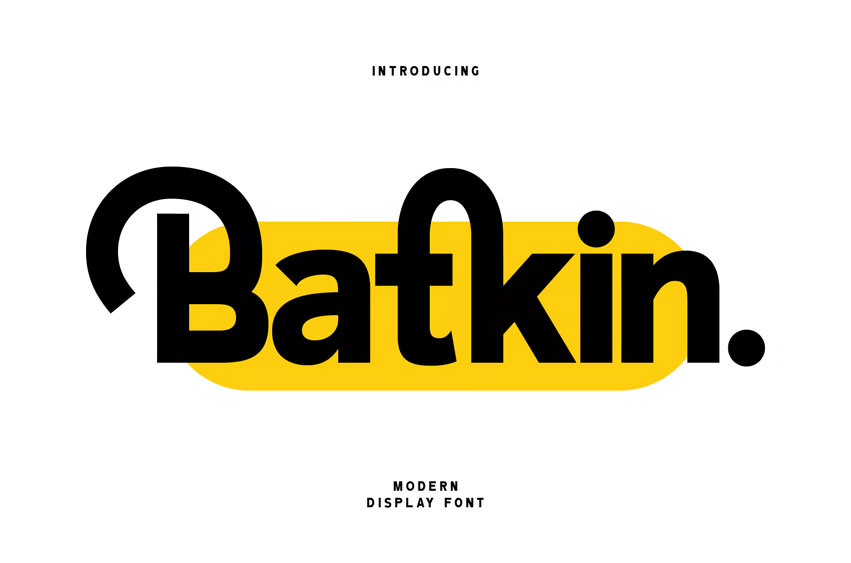
Batkin Font is a bold and modern display font that combines strong geometric shapes with playful curves. Its unique letterforms give it a creative and contemporary character, perfect for branding, packaging, headlines, or editorial designs. The smooth, rounded terminals contrast with sharp lines, creating a striking balance between friendly and professional tones. Whether used in large print or digital screens, Batkin brings boldness and clarity to any design project.
• Single Style: Modern and geometric display style
• Unique character design for high visual impact
• Uppercase & Lowercase: Versatile for different design needs
• Perfect for: Branding, posters, editorials, and more